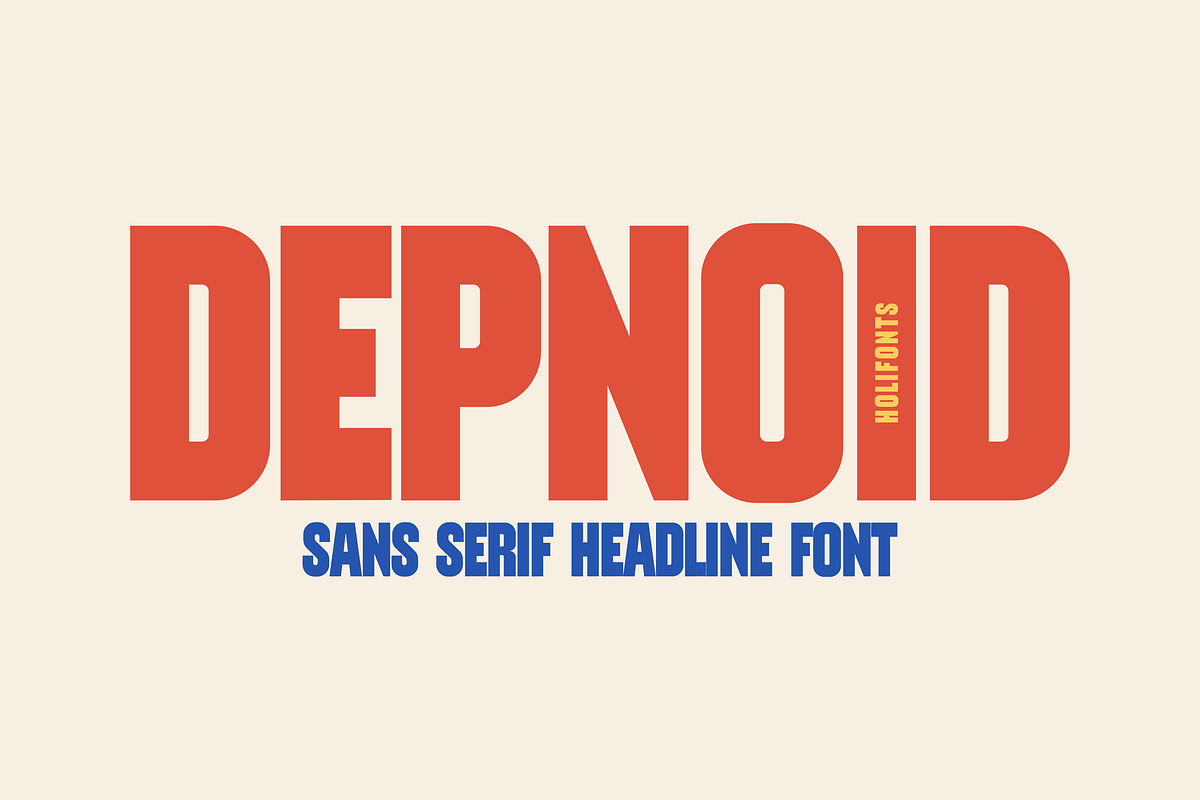
When your project demands power, presence, and instant visual impact, Depnoid steps in—ready to dominate. This isn’t just a font; it’s a design weapon engineered for headlines, logos, and high-visibility compositions. With its aggressive geometry, thick strokes, and sharp precision, Depnoid cuts through the noise and makes your message impossible to ignore. Whether you’re designing a concert poster, launching a brand, or crafting a cinematic title sequence, Depnoid delivers the boldness and attitude modern design demands.
Four Powerful Variants for Maximum Creative Freedom
Depnoid isn’t one-dimensional. It’s built around versatility, offering four distinct font styles to adapt to your exact creative vision:
- Depnoid Regular: The classic, raw power. Sharp angles, no-nonsense lines, and a commanding structure. Ideal for strong branding, bold headings, and editorial layouts where clarity meets energy.
- Depnoid Rounded: Where aggression meets softness. This variant retains the font’s bold identity while introducing smooth, flowing edges for a more approachable, modern aesthetic. Perfect for digital designs, app interfaces, and youth-centric projects.
- Depnoid Italic: A dynamic slant with a fierce edge. Add a sense of motion, urgency, or elegance to your text. Use this for impactful quotes, fashion branding, or editorial pulls that need a touch of movement.
- Depnoid Italic Rounded: The ultimate fusion—aggression meets fluidity. This variant is perfect when you need both strength and modern refinement. Tailored for premium campaigns, cinematic titles, and luxury branding visuals.
Every variation is meticulously crafted to maintain consistency in weight and character, so switching styles feels seamless, not forced. You’re not just choosing a font—you’re selecting the right tool for the right mission.
Where to Use Depnoid: Design Domains That Demand Attention
Depnoid thrives in environments where impact is key. It’s not for subtle whispers—it’s for roaring statements. Here’s where it truly excels:
- Posters & Billboards: Command space with massive, attention-grabbing headlines. Make your message seen from across the room.
- Logos & Branding: Build strong, memorable identities. Depnoid gives your brand a powerful visual signature that stands out in crowded markets.
- Editorial & Magazine Design: Break up text with dynamic headlines. Use it for article titles, pull quotes, and section dividers.
- Website Headers & UI Elements: Make your navigation and hero sections pop. Ideal for modern tech brands, music festivals, and gaming websites.
- Social Media & Digital Ads: Create bold, scroll-stopping content. Depnoid turns text into a visual experience.
- Fashion & Event Branding: Add edge to lookbooks, event invites, and backstage visuals.
Use Depnoid not just to display text—but to deliver impact.
Make Your Design Unforgettable
Depnoid isn’t just a font. It’s a design philosophy: bold, confident, and uncompromising. You’re not using a tool—you’re wielding a statement. Whether you’re a seasoned designer or a creative entrepreneur, Depnoid empowers you to push boundaries, take risks, and make your work truly stand out.